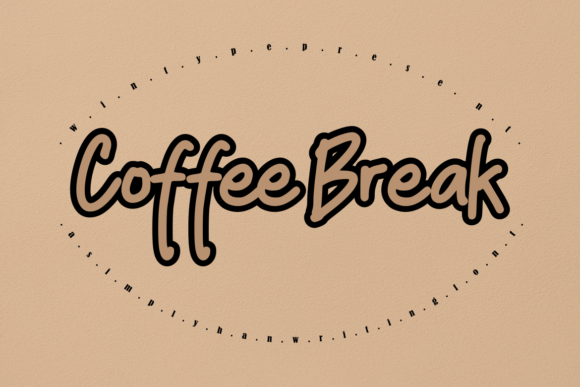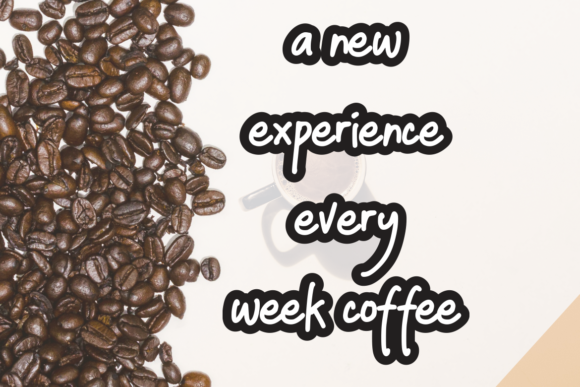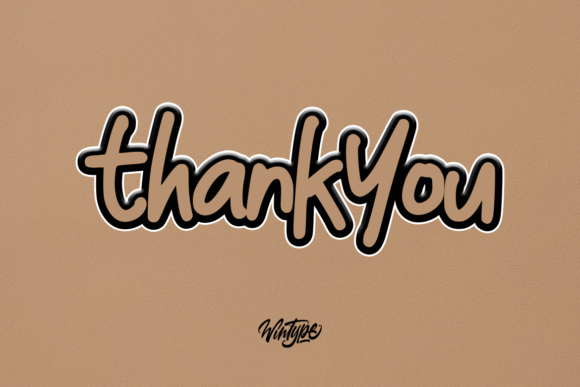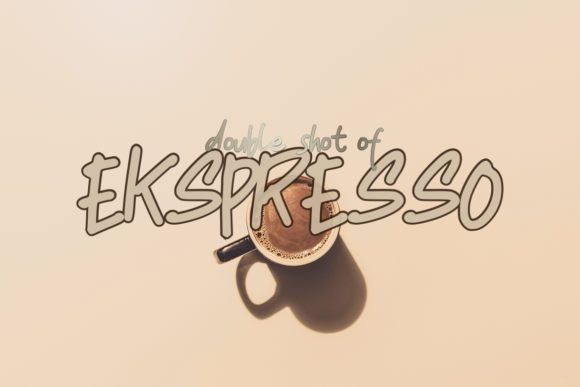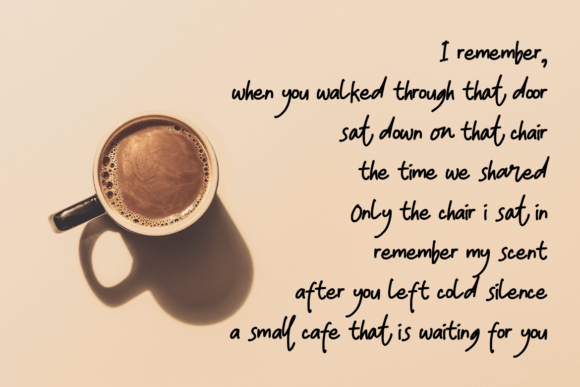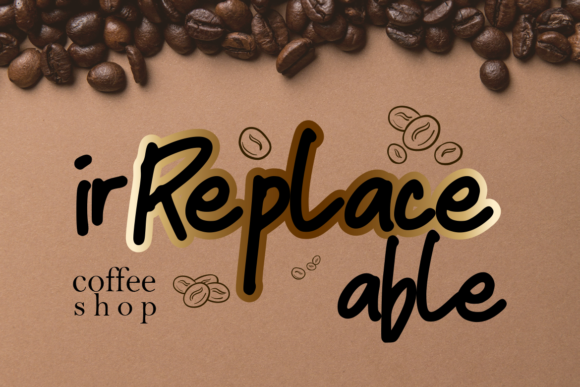
Coffee Break Font
About Coffee Break Font
Coffee Break is a simple, laid-back and friendly handwritten font. Whether you’re looking for fonts for Instagram or calligraphy scripts for DIY projects, this font will turn any creative idea into a true piece of art!